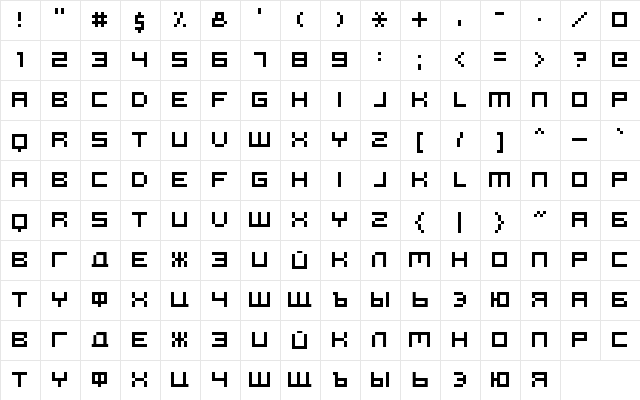
Hooge 0553 LeS version Regular Font Preview
Hooge 0553 LeS version Regular
Design Context for Hooge 0553 LeS version Typeface
Hooge 0553 LeS version takes a measured approach to typography — its balanced proportions and neutral character make it a reliable workhorse for both digital and print work.